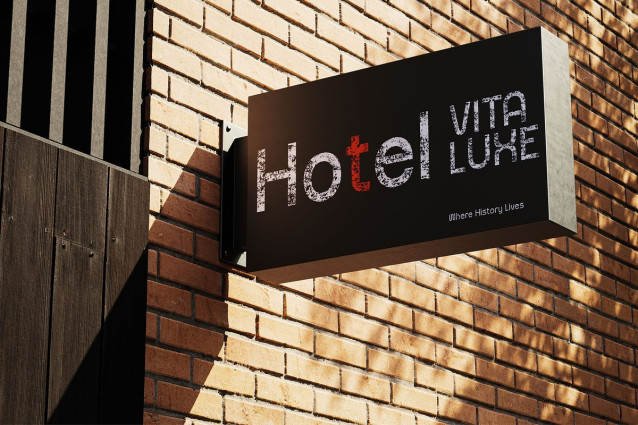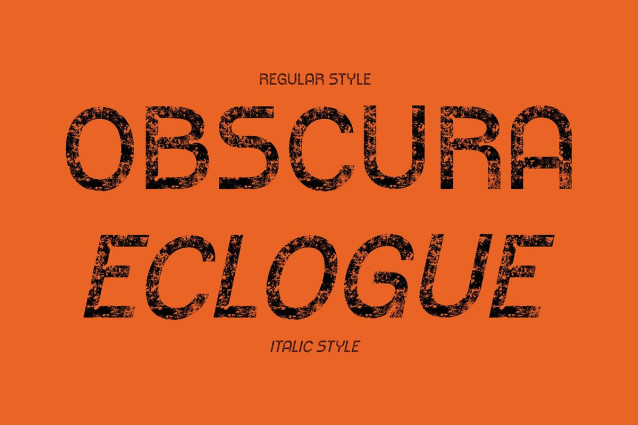
Sarnai Stamp Font
Sarnai Stamp Font – This is a modern serif font that blends precision with artistry. Featuring inktrap details, the letterforms maintain sharpness and clarity while adding subtle intricacy. The design brings a refined yet functional quality, making it both stylish and highly usable in contemporary projects.
Stamp Effect for Unique Character What sets apart is its distinct stamp texture, which introduces artistic depth and individuality. This effect gives the font a tactile, handcrafted appearance, evoking the authenticity of vintage print techniques. The result is a typeface that feels both timeless and expressive, ideal for projects that need character and distinction.
Balanced Design for Versatile Use The balance of sharp letterforms and artistic detailing makes highly versatile. It works beautifully in editorials where elegance is key, in branding where memorability matters, and in posters that demand bold visual impact. Its ability to shift between modern precision and vintage warmth allows it to suit diverse creative contexts.
A Blend of Sophistication and Creativity Thrives at the intersection of tradition and innovation. The modern serif structure conveys professionalism and sophistication, while the stamp texture and inktrap details infuse creativity and uniqueness. This duality ensures the font remains compelling whether used in luxury branding, artistic posters, or editorial layouts, making it a valuable addition to any designer’s toolkit.